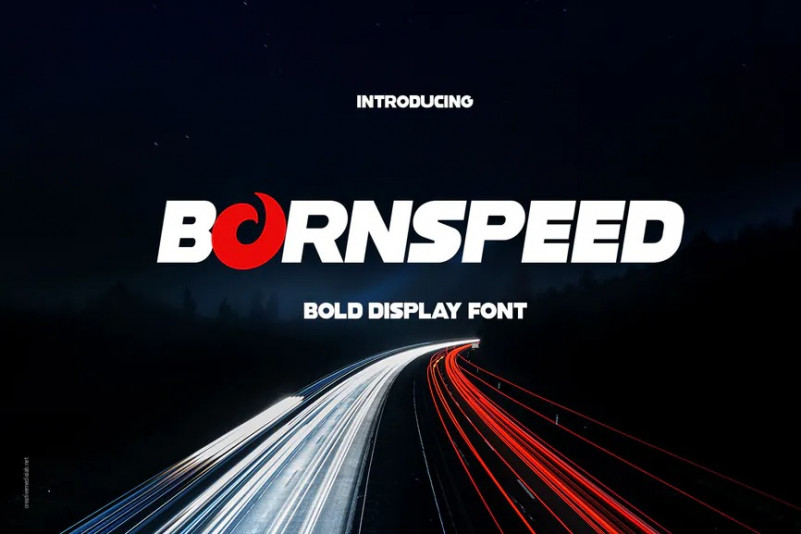
Bornspeed Font
Introducing Bornspeed, a bold display font. All caps font to create a strong and solid title, display, logo, workout poster, gym poster, personal training, and much more. get inspired by it’s strong and solid appeal!